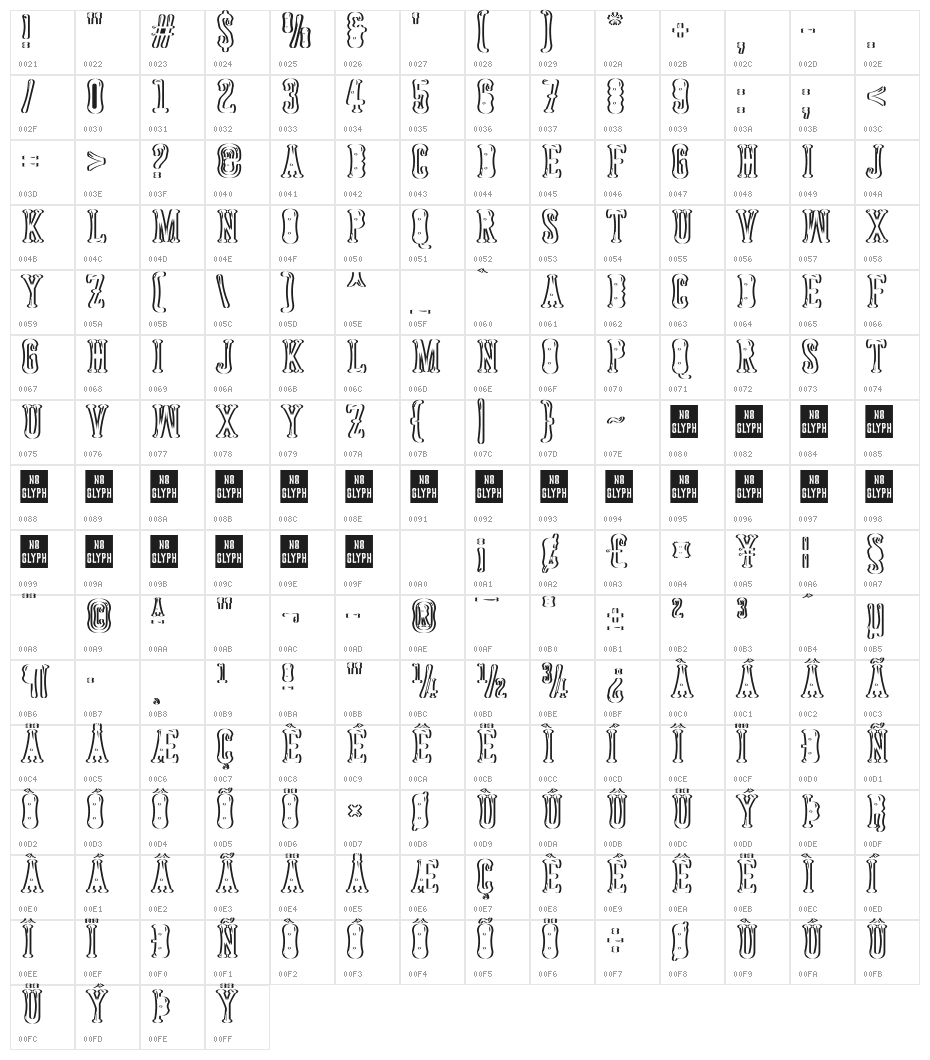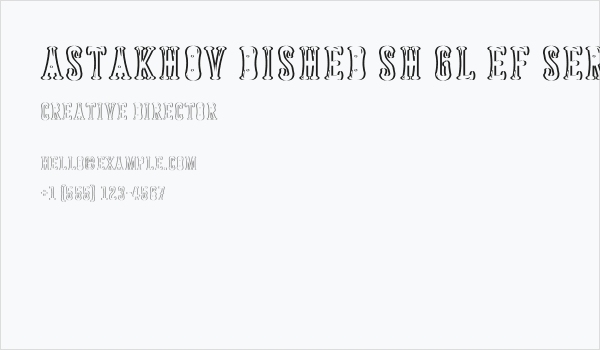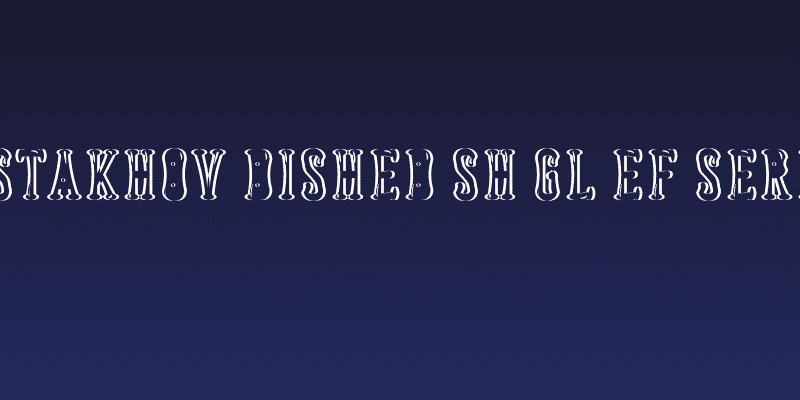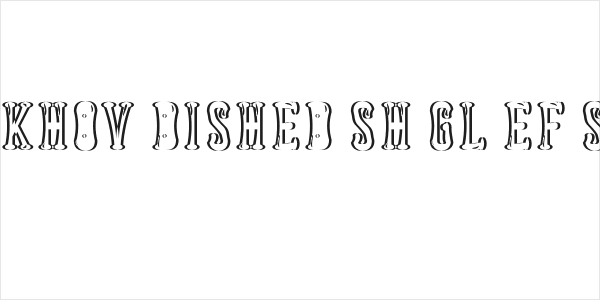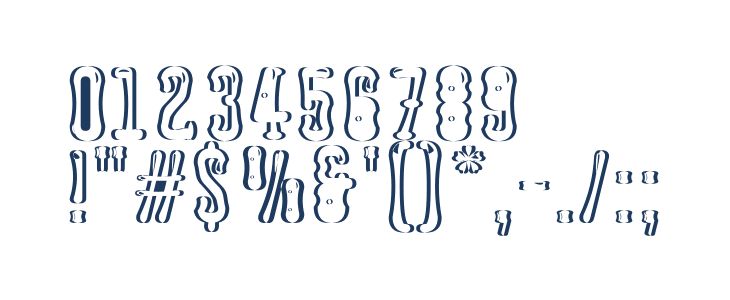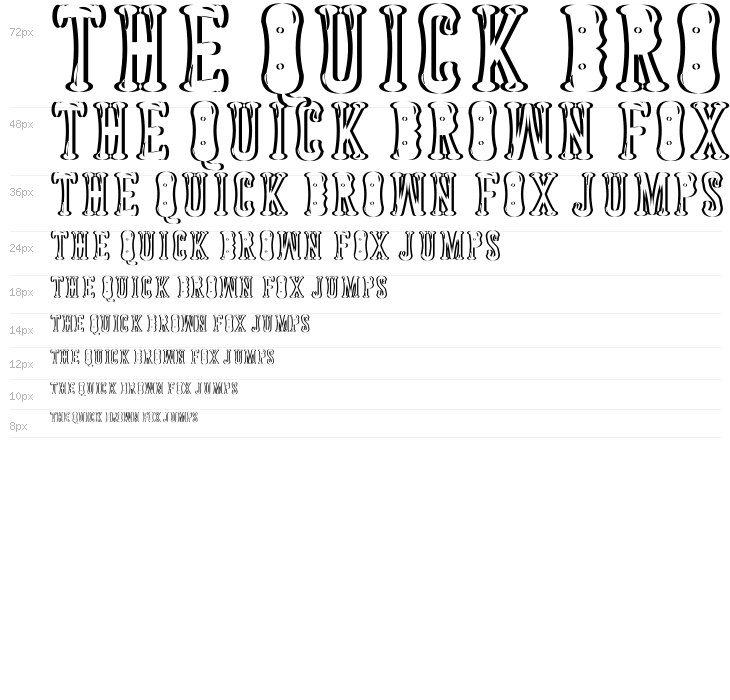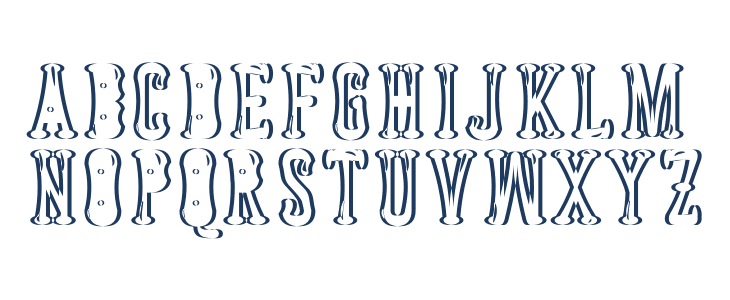
Astakhov Dished Sh Gl EF Serif Font
Astakhov Dished Sh Gl EF Serif Description
This font features a bold and decorative design with a unique, playful style. The characters are outlined with a shadow effect, giving them a three-dimensional appearance. The serifs are pronounced and add to the overall whimsical aesthetic. The font includes both uppercase and lowercase letters, numbers, and a variety of special characters. Its distinctive look makes it stand out, suitable for creative and eye-catching designs.
| Proposed Projects | Ideal for posters, logos, and creative branding projects that require a standout, artistic touch. |